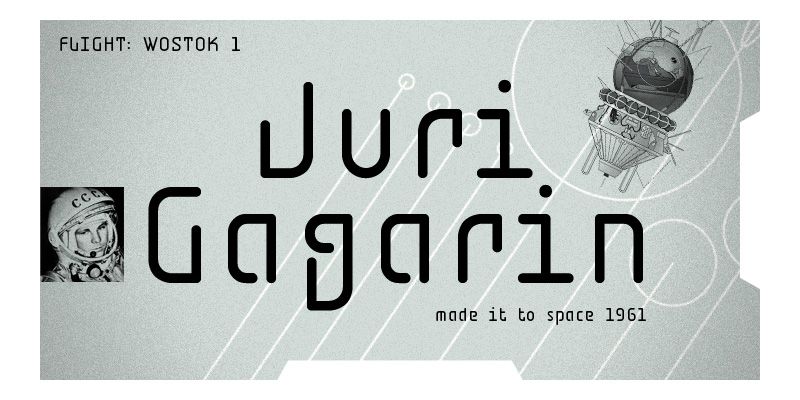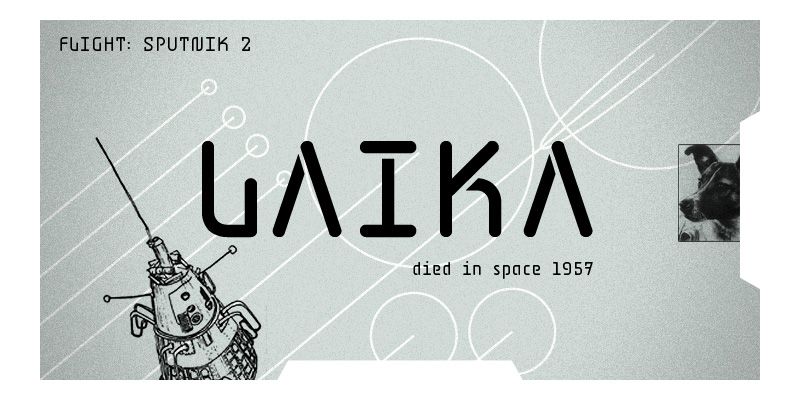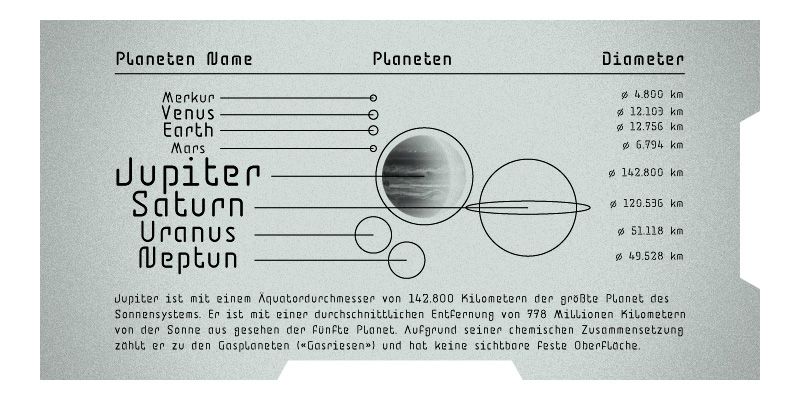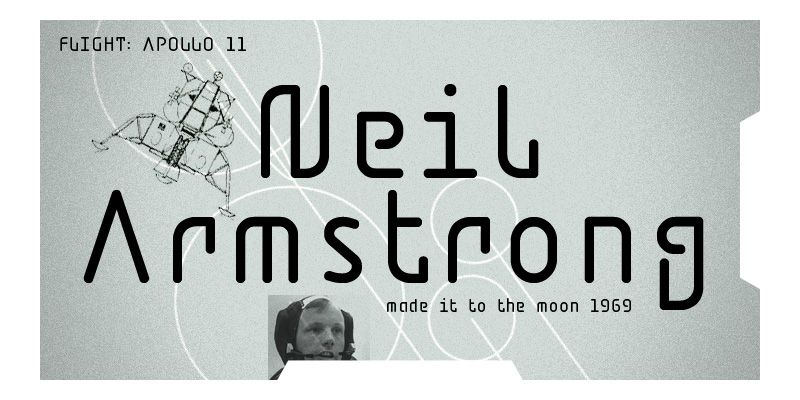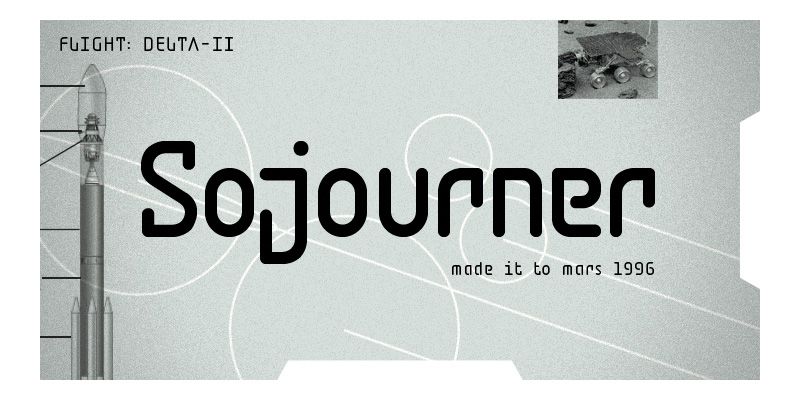
BD Jupiter font family is inspired by stencil lettering on architectural plans, military boxes and instruction guides. It contains the four styles: Regular, Bold, Regular Stencil and Bold Stencil. Designed by Lopetz in 2006.